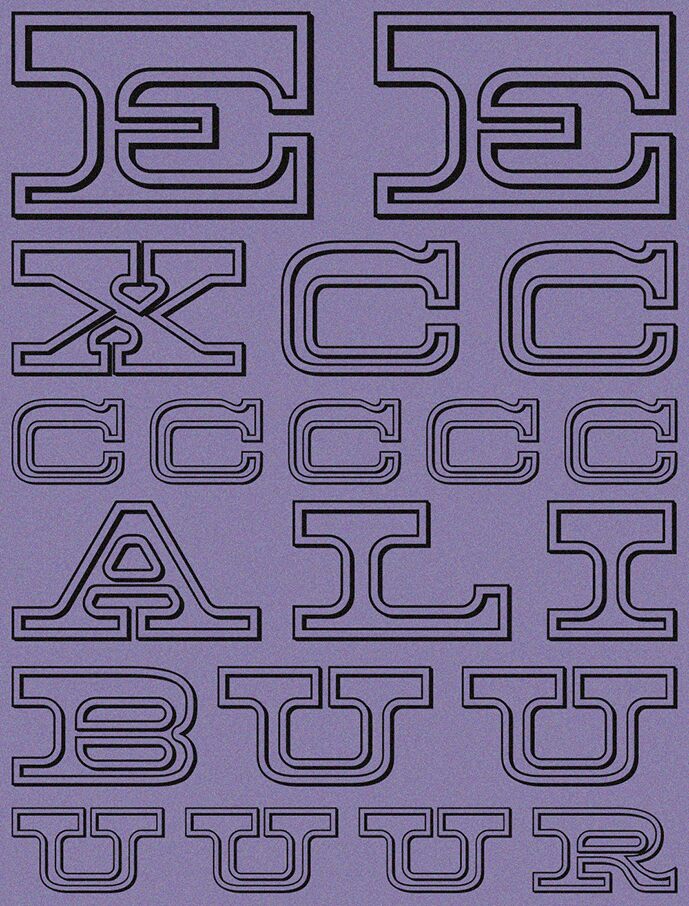
Introducing Excalibur Regular - a bold, wide 3D Western font from Vladimir Nikolic. Perfect for creating vintage-inspired designs, titles, logos, posters and more! Use it to add an eye-catching touch to your projects and take them to the next level.
Excalibur